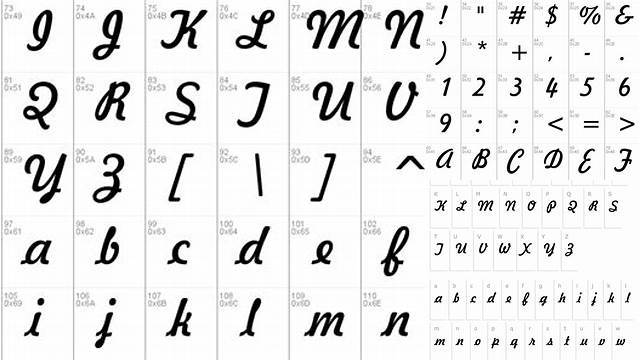
Font Freehand521 BT: Your Ultimate Guide
Font Freehand521 BT is a distinctive typeface that has captured the attention of designers and creatives for years. This article provides a thorough exploration of Font Freehand521 BT, covering its history, characteristics, usage, and alternatives. Whether you're a seasoned designer or just starting out, this guide will give you a deep understanding of this unique font and how it can enhance your projects.
H2: The Origins and Evolution of Font Freehand521 BT
Let's dive into the world of Font Freehand521 BT and explore its beginnings, shall we? This font, as its name suggests, has a certain hand-drawn quality, which sets it apart from many other typefaces. This hand-crafted aesthetic has made Font Freehand521 BT a popular choice for projects needing a personal, artistic touch. Its origins can be traced back to the late 20th century, during a time when digital typography was rapidly evolving. The designers aimed to create a font that looked like it had been created by hand, a concept that was quite appealing in a time of increasing automation. The developers were keen on providing a typeface that moved away from the stark, impersonal feeling of many modern fonts. Instead, they sought to infuse an element of human creativity and artistic expression. This desire led to the creation of a font that has character and personality, qualities that are hard to find in a lot of other digital typefaces. The evolution of Font Freehand521 BT hasn't just been about its creation; it's also about its refinements. Over time, the typeface has seen various updates, ensuring it remains compatible with new technologies and design standards. Each modification focused on preserving the font's original charm while improving its legibility and usability across different platforms. The font has adapted to meet the growing demands of the design world, while also staying true to its hand-drawn roots. Many designers have added their own artistic takes, making it even more versatile. The essence of Font Freehand521 BT lies in its capacity to bridge the gap between traditional artistry and digital design. It provides a warm, friendly aesthetic that is missing in the often sterile digital environment. This is why it has managed to capture the hearts of designers around the globe. The font is a celebration of the human touch, a reminder that behind every digital design, there's an artist's hand shaping the world.
H3: The Designers and Their Vision
Now, let's take a closer look at the creators of Font Freehand521 BT, and the vision that drove its creation. Behind every great font, there's a team of individuals who pour their talents into giving birth to it. The team responsible for Font Freehand521 BT had a clear vision: to create a typeface that stood out from the crowd. They wanted to move away from the often sterile and overly polished look of many digital fonts and create something with character. They were inspired by the beauty of hand-drawn lettering, the kind you see in old-school posters, custom signs, and artistic invitations. The creators' primary goal was to encapsulate the essence of human artistry and blend it into the digital world. They wanted to create a typeface that looked like it had been drawn with a pen or brush, as if the letters were born from the movement of a hand. This vision involved painstaking attention to detail, meticulously crafting each letter to ensure it possessed a unique personality. The creators understood that a typeface is more than just a collection of characters. It is an expression of artistic intent. The design process was, without a doubt, a labor of love. The design team devoted countless hours to refining every curve, angle, and stroke. Each letter was designed to harmonize with the others, creating a cohesive and engaging whole. Their work involved numerous sketches, revisions, and experiments. The result is a font that stands out with an irresistible charm. Font Freehand521 BT also needed to be useful in the real world, which is another area of the designers' focus. The team knew that a typeface's value lies in its usability. This is why they spent time making sure it was readable and adaptable to different applications. They sought a balance between artistry and functionality. The team also aimed to create a font that would last. They did not want to simply ride the trends. Instead, they envisioned a font that would stand the test of time. They wanted a design that would capture the hearts of designers for years to come.
H2: Key Characteristics of Font Freehand521 BT
Let's examine the key characteristics of Font Freehand521 BT! The first thing you'll notice is its hand-drawn appearance, a defining feature. This aesthetic makes it a great choice for projects that need a personal touch. Each letter seems to come from a real human hand, which creates a sense of intimacy. This is different from the often clean and geometric look of many modern typefaces. This difference is why Font Freehand521 BT is very attractive to designers. The curves, strokes, and angles of the characters look natural, as if they've been created with a pen or brush. This organic quality provides a warm, friendly feel that's especially useful for projects that want to connect with the audience on a more emotional level. Another defining characteristic is its versatility. The font works well in a variety of contexts, from headlines to body text. Its readability is a key attribute, and it remains accessible in various sizes. This adaptability is what makes it so useful in different types of designs. The font doesn't just look good; it also offers a high degree of readability. The designers paid special attention to this, ensuring that the characters are well-defined and easy to recognize, even in smaller sizes. This makes Font Freehand521 BT a practical choice for extended text passages, such as articles or documents. The typeface also has a certain degree of character. Each letter has its own distinct personality, which gives the font a lively and engaging feel. This unique quality allows it to stand out from more generic fonts. Font Freehand521 BT has a distinct style. It can be informal and playful, or it can be elegant and sophisticated. It provides a versatile range of design possibilities. The spacing and kerning of the letters are also carefully considered to ensure optimal readability. The designers spent time ensuring that the space between each letter is consistent and balanced. This is a key part of any great font. This meticulous attention to detail greatly contributes to the font's overall appeal and professional quality.
H3: Visual Aesthetics and Design Elements
Let's dive into the visual aesthetics and design elements of Font Freehand521 BT, shall we? The essence of Font Freehand521 BT is its hand-drawn appearance. It feels like each letter was carefully created by hand, which gives the font a unique charm. It's this handmade touch that sets it apart from digital fonts. The curves and strokes have a natural flow, which suggests an artistic hand behind the design. The angles and details are designed to mimic the appearance of ink strokes, adding to its unique style. The design also has its own specific features. The weight and thickness of the characters are carefully balanced to ensure that the font is legible. The designers paid great attention to every detail, from the fine lines to the overall balance of the font. The carefully crafted design makes sure the font is both visually appealing and easy to read. The contrast between the thick and thin strokes gives the font a dynamic feel. This contrast also creates a sense of movement, making it visually interesting. The designers also incorporated subtle irregularities, which give the font its hand-drawn quality. These imperfections are what give Font Freehand521 BT its human touch, allowing the font to resonate more deeply with its audience. The letterforms have a sense of fluidity and grace. The designers took great care to make sure each letter flowed seamlessly into the next. This fluidity contributes to the font's overall visual appeal. This seamless flow enhances the reading experience, making it easier for the audience to engage with the content. The spacing and kerning are optimized for readability. The designers carefully adjusted the spacing between each letter to ensure optimal legibility, regardless of the context. The kerning adjustments contribute to the overall readability of the text, making it a suitable choice for various design purposes. The details contribute to the font's unique personality and visual appeal. They are what make Font Freehand521 BT a memorable choice for designers who seek to add a personal touch to their work.
H2: Typography and Readability of Font Freehand521 BT
Now, let's talk about typography and readability of Font Freehand521 BT. Typography is the art of arranging type to make written language readable and appealing, and Font Freehand521 BT excels in this regard. The font has been designed to be legible and visually appealing, even in a variety of different contexts. The font designers have paid special attention to character design and spacing, which enhances the overall readability. This makes the font appropriate for both headlines and body text. The font's unique style and distinct personality contribute to its overall readability. The hand-drawn appearance gives it a human touch. This adds a sense of approachability that can improve the audience's engagement with the text. The readability of the font is also influenced by the letterforms themselves. The curves and strokes are carefully crafted to ensure they are easily recognizable, even at a smaller size. This is a critical factor in maintaining readability across various design contexts, from small print to large displays. The font's versatility also contributes to its readability. Its adaptable nature allows it to be used in various contexts, ensuring the audience can easily read the text. The ability of the font to adapt to various design scenarios, while maintaining its unique character, is one of its greatest strengths. In terms of legibility, Font Freehand521 BT provides a nice reading experience. The design of the font allows for smooth and effortless reading. This is achieved through careful attention to factors such as letter spacing, kerning, and the unique curves of the characters. These elements work together to ensure that the text is easy on the eyes. Readability is critical. Poor readability can make the message difficult to grasp and may even cause the audience to lose interest. Therefore, Font Freehand521 BT is a great choice. It can be used for different contexts because of its ease of readability. This makes the design process easier, and ensures the text is effective.
H3: Best Practices for Using Font Freehand521 BT in Design
Let's uncover best practices for using Font Freehand521 BT in design. First, it's important to consider context. The font is a great choice for projects needing a personal or hand-crafted feel. It's perfect for designs like invitations, posters, and logos where a friendly and artistic style is desirable. The hand-drawn appearance can make the designs feel more approachable and human. Always consider the size. The font works best at moderate to larger sizes, especially for headlines or titles. It may not be suitable for small print because of the detail in the letterforms. If you're using it for body text, consider a larger size. This will enhance readability. Font Freehand521 BT pairs well with simpler fonts. This contrast can make your designs more balanced and visually attractive. Consider pairing it with a clean, sans-serif font for body text. This helps balance the font's ornate style. Always think about the overall design. Try not to overuse it. It can overwhelm your audience if used too much. Moderation is key, especially when it comes to design. Experiment with different color schemes. The font can work well with different colors. The hand-drawn style can complement both vibrant and muted colors. Choose colors that complement the font and the message. To make the best use of the font, make sure it is legible. Ensure the text is easy to read and understand. Careful attention to spacing and kerning can enhance the readability. Lastly, ensure the design remains consistent. Keep a consistent use of the font across all design elements. This helps create a cohesive and professional look. By following these best practices, you can maximize the impact of Font Freehand521 BT in your designs, creating visually stunning and engaging projects. The best practices also help maintain the integrity of the font.
H2: Common Applications and Use Cases
Let's examine the common applications and use cases of Font Freehand521 BT. This font's unique style makes it a popular choice for various design projects. It's great for projects that require a hand-drawn feel. Here are some examples of where this font shines. In the realm of branding, Font Freehand521 BT often finds a home in logos and brand identities. The font's unique style helps create a memorable and recognizable brand image. It's perfect for brands that want to convey creativity, authenticity, or a personal touch. Its unique design makes logos stand out, providing a friendly aesthetic. In the world of print design, Font Freehand521 BT is a great option for invitations, greeting cards, and posters. The hand-drawn style adds a personal touch. It makes these print materials look more unique and appealing, setting them apart from the mass-produced alternatives. The font also gives printed materials an artistic look. This makes them great for special events, such as weddings and birthday parties. In digital design, Font Freehand521 BT is used in websites, social media graphics, and online advertising. The font's unique style can capture the attention of viewers, making them more likely to engage with the content. This font is great for creating an appealing online presence. The versatility of the font makes it a great option for diverse digital platforms. The font also works well for packaging design. The hand-drawn style can make products look more appealing. This is especially useful for artisanal or handmade goods, where the font can add a sense of authenticity. By choosing Font Freehand521 BT, designers can add a distinctive visual appeal that resonates with audiences, enhancing the overall impact of their creative work.
H3: Designing Logos and Branding Materials
Now, let's discover how Font Freehand521 BT is used to create logos and branding materials. One of its most common applications is in logo design. The font's hand-drawn appearance gives logos a unique look. This helps create a strong brand identity. The font's friendly aesthetic makes it an ideal choice for businesses wanting to convey a sense of approachability. It's particularly well-suited for brands aiming to appear creative, authentic, or artistic. This font offers a personalized touch, setting logos apart. The character of the font can be customized to reflect a brand's unique personality. This customization helps create a memorable brand identity. The font is often used in branding materials, such as business cards, brochures, and website headers. It provides a cohesive design language, which helps in brand consistency. This is key for reinforcing brand recognition among target audiences. The font's hand-drawn style stands out, helping to make a good first impression. Branding materials are essential for capturing customer attention. It has been used in many design projects, helping companies reach their goals. The versatility of Font Freehand521 BT allows it to blend easily into other design elements. This ensures that the overall branding materials are harmonious. The font has a friendly look, helping brands connect with their target audience on an emotional level. The font provides a consistent brand identity across many communication channels. This creates a professional and recognizable image. By strategically using the font in logos and branding materials, businesses can establish a distinctive visual presence. This helps build brand recognition and convey their core values effectively. This strategic use enhances the brand's identity.
H2: Pairing Font Freehand521 BT with Other Fonts
Let's explore how to pair Font Freehand521 BT with other fonts. Pairing fonts is a key aspect of design, and the right combinations can improve the overall look and feel of your projects. The most common approach is to pair Font Freehand521 BT with a clean, sans-serif font. This contrast balances the font's ornate style and ensures readability. The clean lines of a sans-serif font can balance the unique hand-drawn feel of Font Freehand521 BT. Using a sans-serif font for body text and Font Freehand521 BT for headings can create a visually appealing and structured layout. Another option is to combine it with a serif font. This is a great way to bring a sense of elegance. The contrast between the two can add a visual interest. Always keep the overall tone of your design in mind. The font can be paired with a script font to enhance the design. This combination can boost the creative feel. A carefully chosen script font can work well, especially for headings or decorative elements. It's essential to consider the readability. Make sure the pairing is readable, particularly when used for body text. Ensure the font choices are legible and work well at different sizes. Avoid pairing Font Freehand521 BT with overly decorative fonts. Too many decorative fonts in one design can make it appear cluttered. Simplicity is often the best way to go. To make the most of these pairings, select fonts that align with your design goals. The best font pairs often depend on the project. It may also depend on your overall target audience. Experimenting with different combinations is always a good idea. The best combination will depend on the project. By selecting the right combinations, you can greatly enhance the impact of Font Freehand521 BT in your designs, creating stunning and engaging projects.